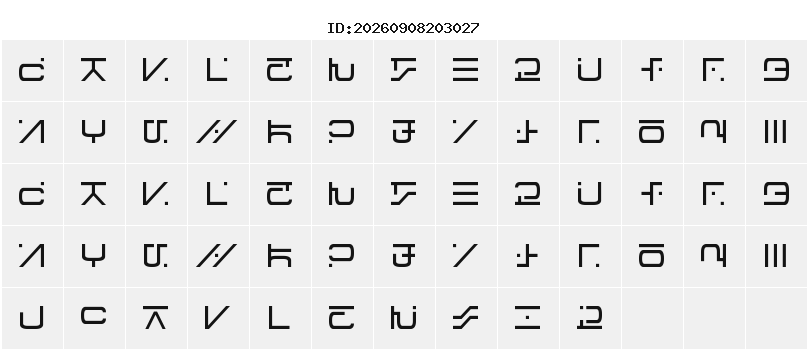
Visitor Script Preview
• Font Name: Visitor Script
• Full Font Name: Visitor Script
• Designer: Neale Davidson
About Visitor Script.ttf
Visitor Script.ttf is a modern, elegant sans-serif font designed for ultimate readability and visual harmony. Perfect for branding, headlines, web design, and print materials.